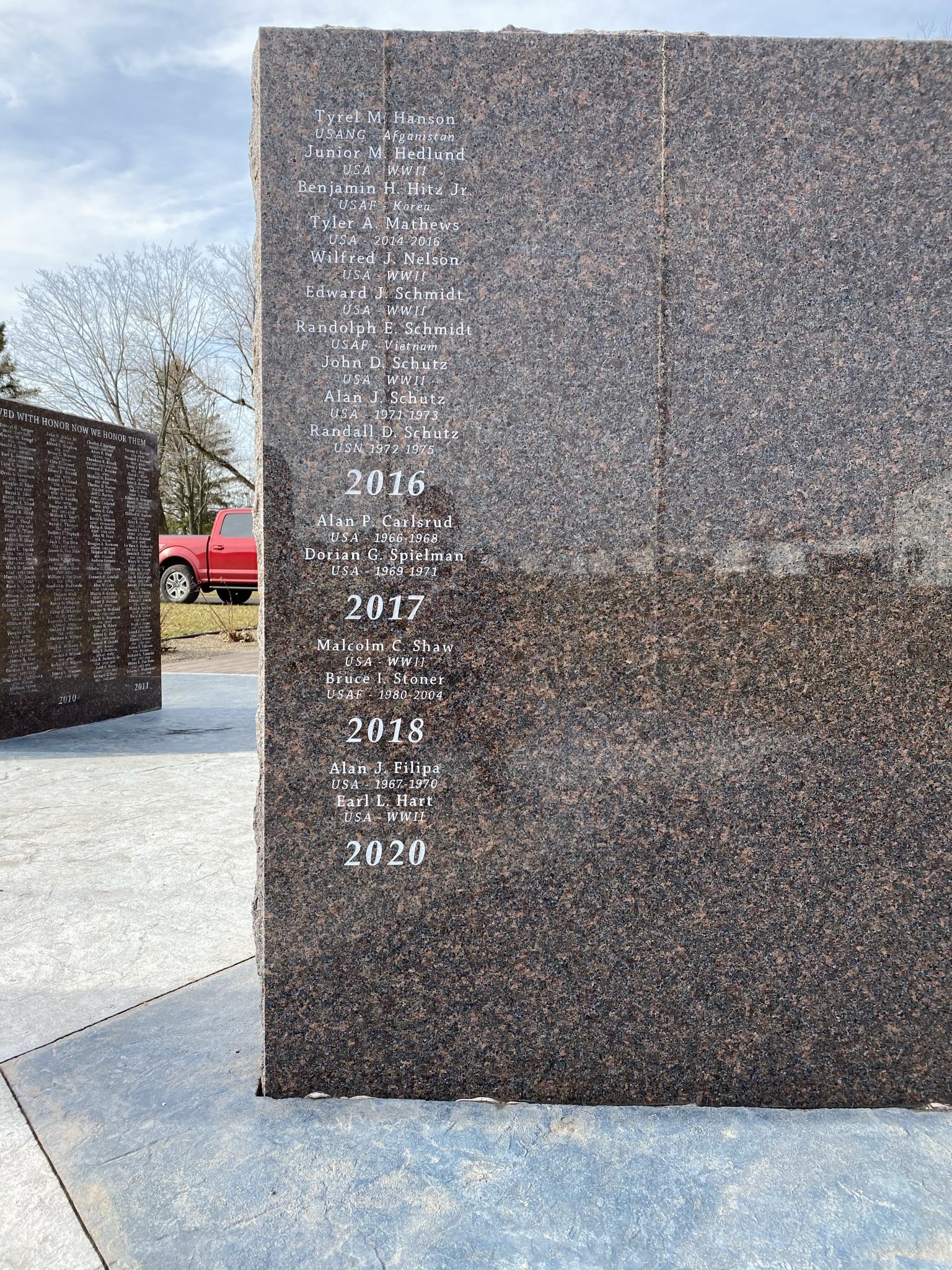
Would it be possible to identify these font types please?
The font used for the years appears to be Palatino Bold Italic.
The other one took quite a bit of digging. The font for the names appears to be Chaparral, and the information below is the same font in italic. However, there are several variations of the font (Regular, Caption, Subhead, and Display). Without closer photos, it is difficult to tell which version was used for this memorial.